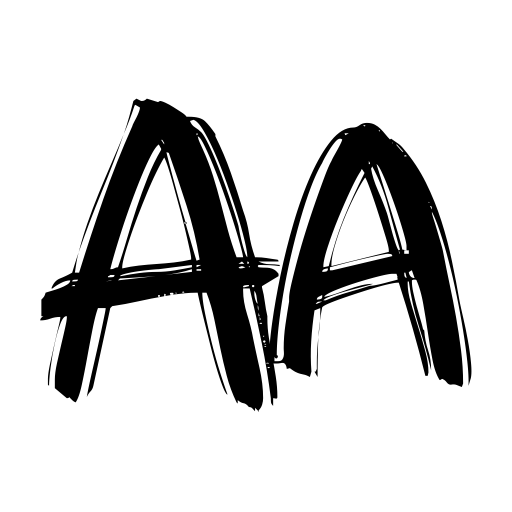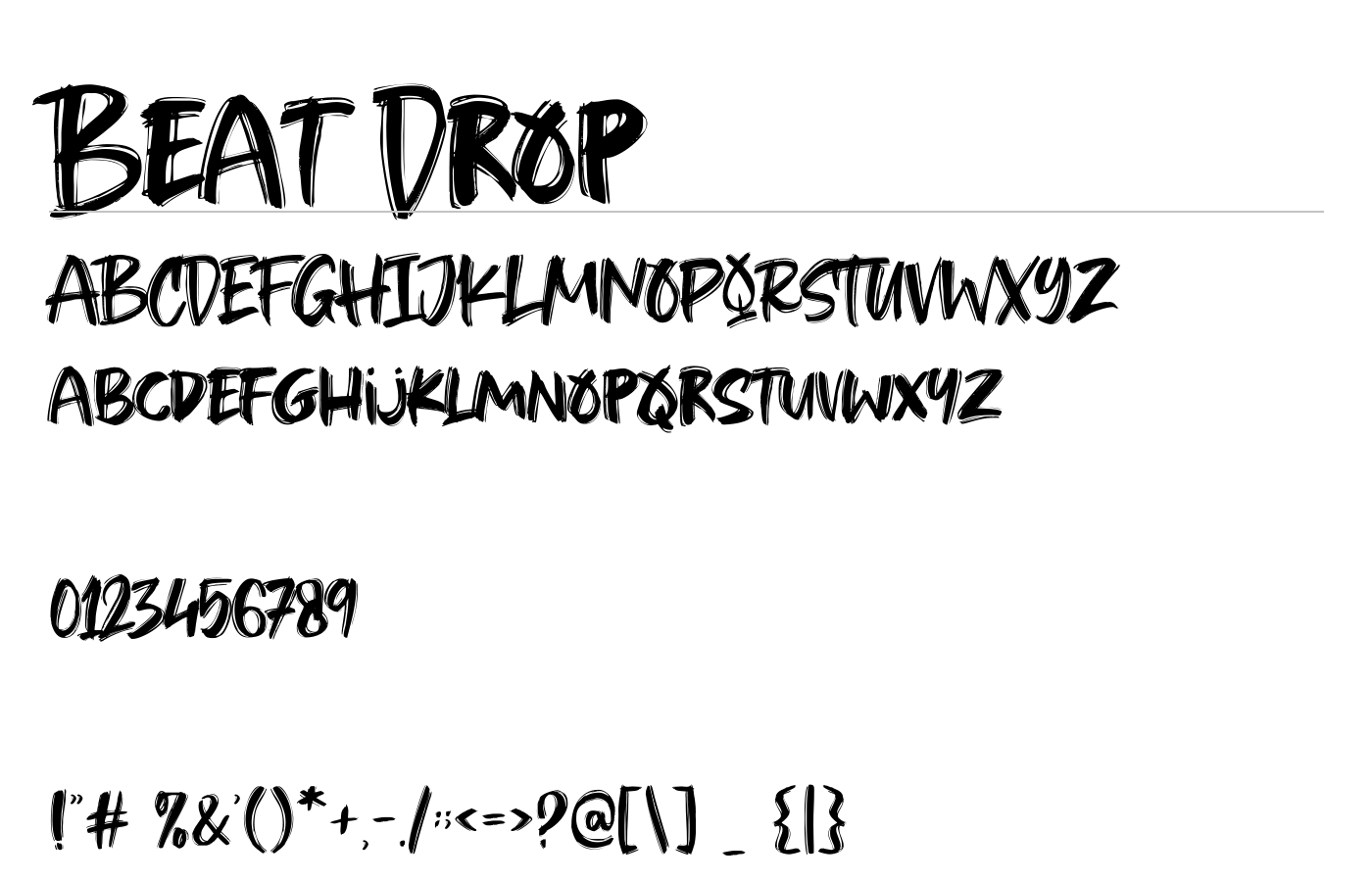
Beat Drop is a bold, hand-drawn sans serif font with a lively, brushstroke texture that gives it an energetic and rebellious personality. Its irregular, playful letterforms and dynamic strokes make it perfect for creative projects, youth-oriented branding, music posters, and other designs that want to convey a sense of movement and excitement. This font's casual yet strong style works best in headlines, logos, and display uses where a bold, artistic impact is needed.
Beat Drop Font
About Beat Drop Font